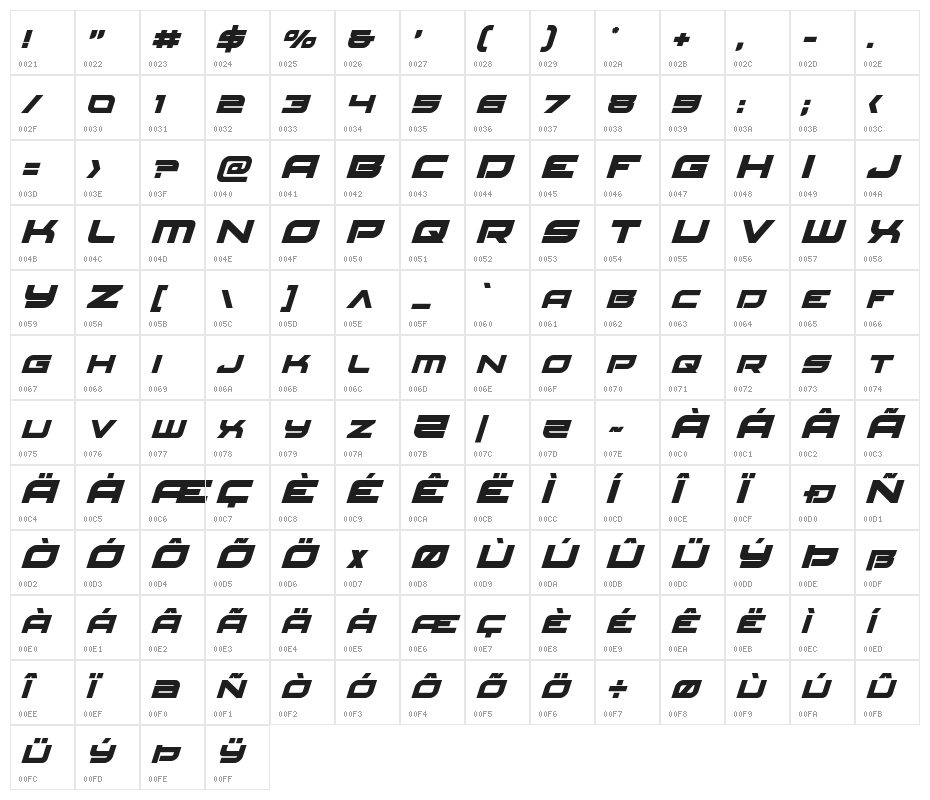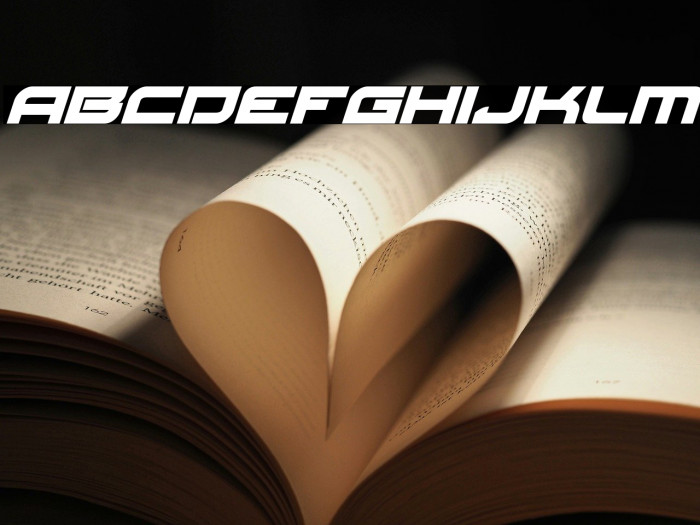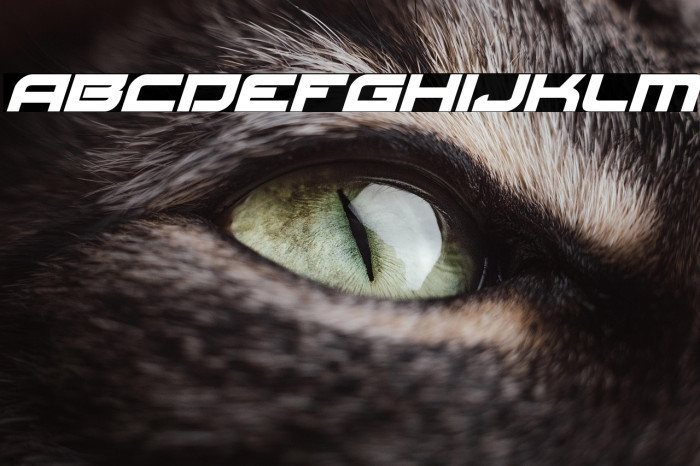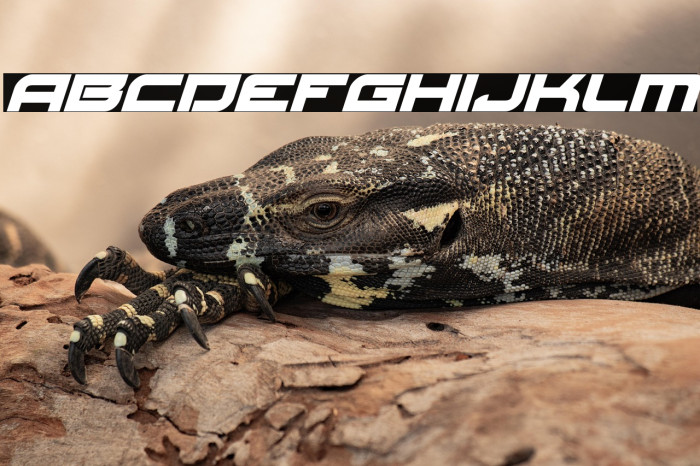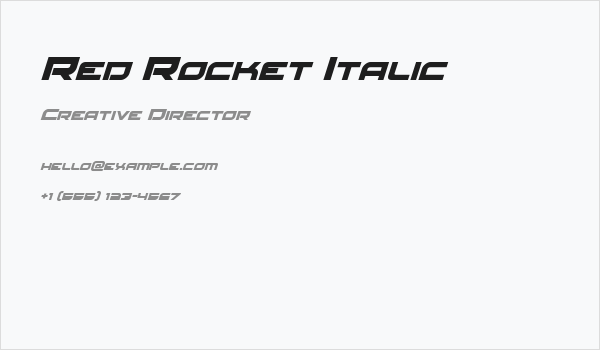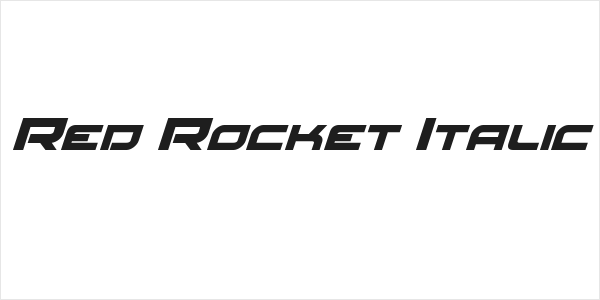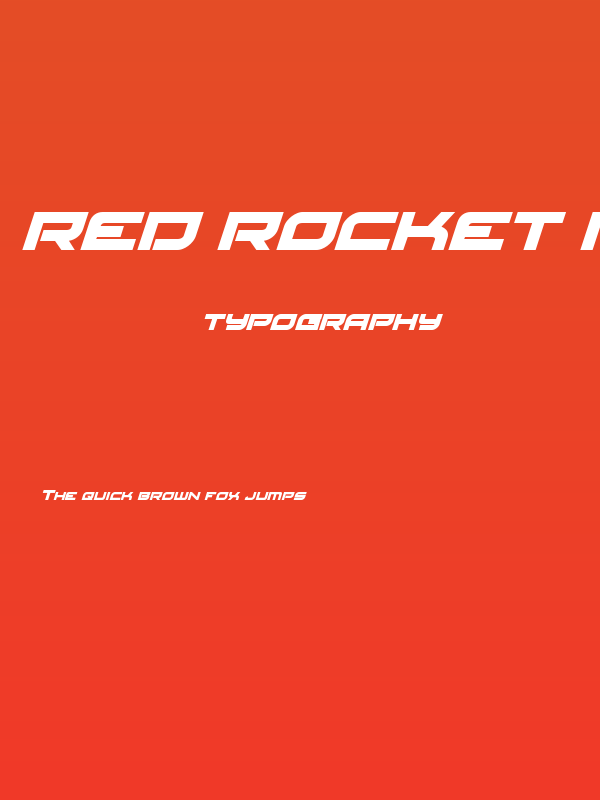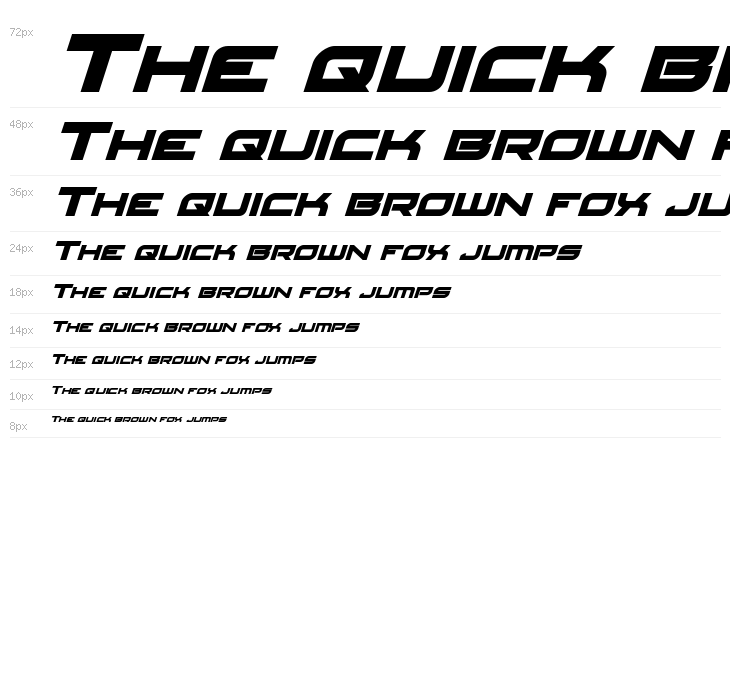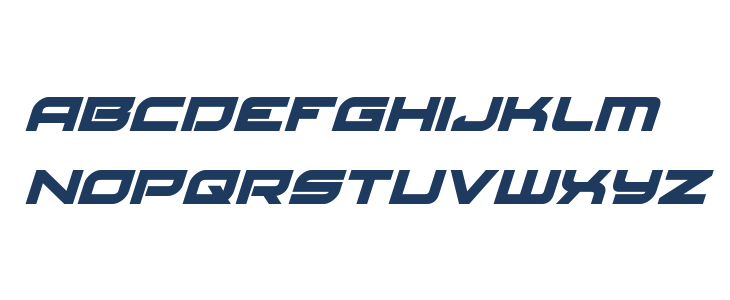
Red Rocket Italic Font
Red Rocket Italic Description
This font features a bold, italicized style with a futuristic and dynamic appearance. The characters are slanted, giving a sense of motion and speed, which is enhanced by the sharp angles and clean lines. The uppercase and lowercase letters maintain a consistent design, with a slight slant that adds to the overall sleek look. The numerals and special characters follow the same design principles, ensuring uniformity across all glyphs. This font is well-suited for projects that require a modern and energetic feel.